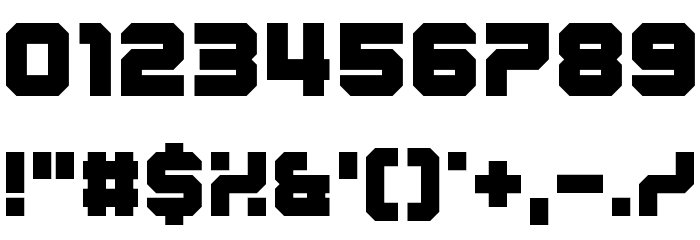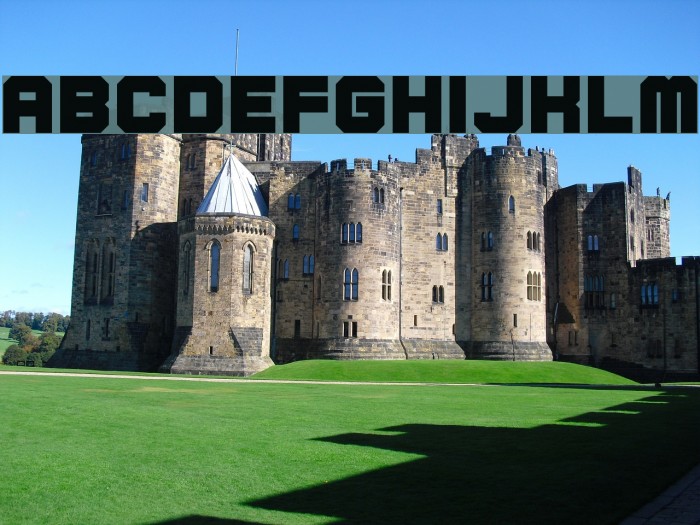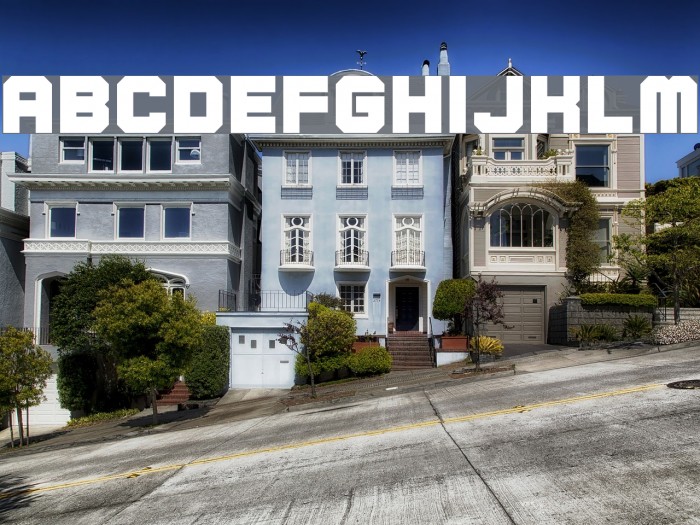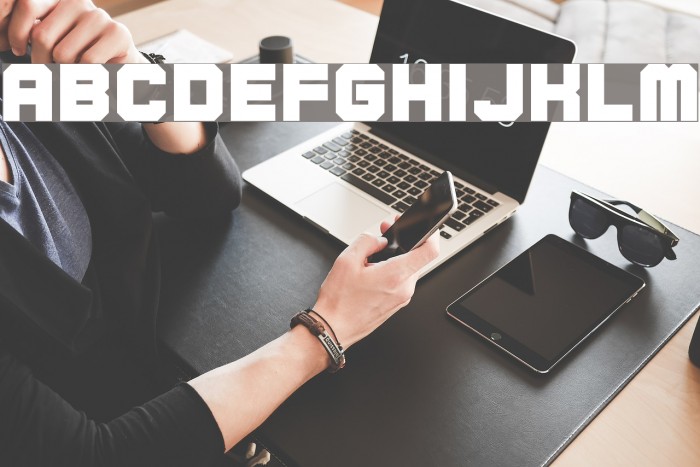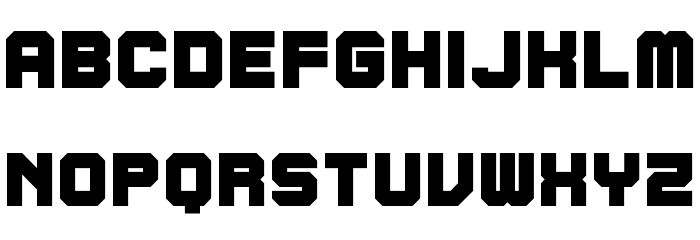
Younger Love Font
This font features a bold, geometric style with strong, angular lines and a solid presence. The characters are uniformly thick, giving it a robust and impactful appearance. The uppercase letters are particularly striking, with a blocky aesthetic that commands attention. The numbers and special characters maintain this boldness, ensuring consistency across all elements. Its design is reminiscent of industrial or futuristic themes, making it suitable for projects that require a modern and assertive look.
A bold, geometric font with a strong, angular design.
• Proposed Projects: Ideal for branding, posters, headlines, and any design that requires a modern, impactful typeface.
• Category: Decorative/Display
• Bold: Yes
• Italic: No
• Weight: Bold
• Width: Normal
• Character Spacing: Normal
• Contrast: Low
• Overall Style: Modern
• Use Case: Headlines, Logos